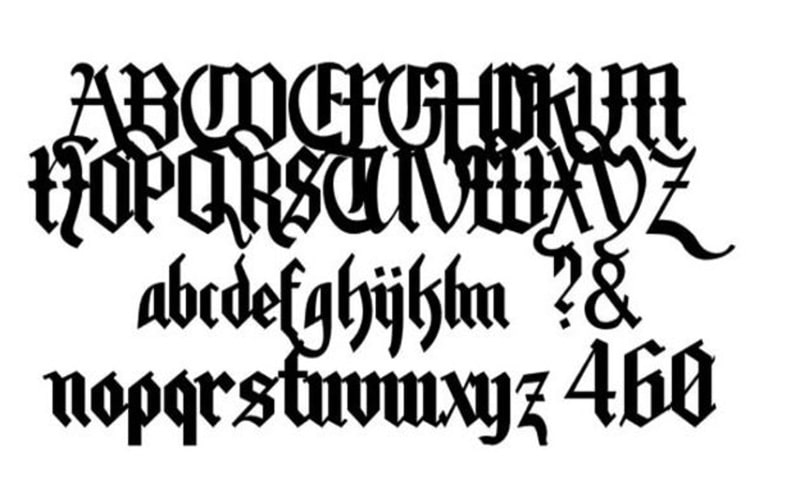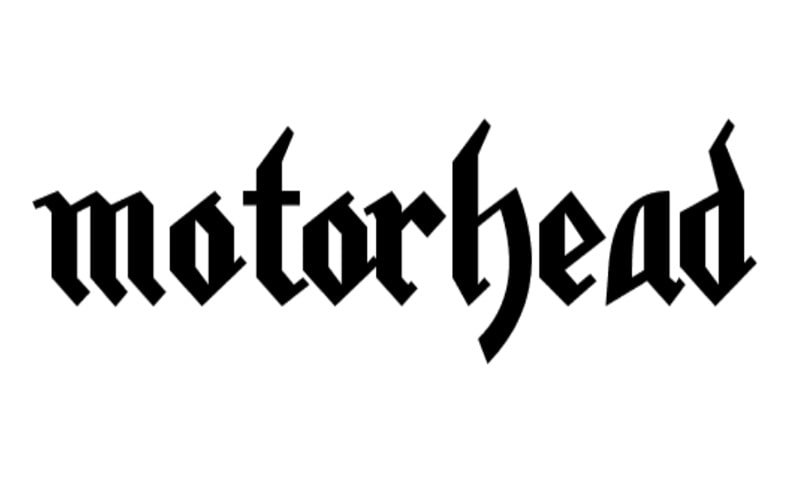
Motorhead Font is a blackletter, display typeface. Nеvillе Brody took charge of designing and releasing it in 1977. This amazing font has a slightly thicker structure with a heavy shape.
So, Motorhead was an England-based rock band created in June 1975 by three members: Ian “Lemmy” Kilmister, Larry Wallis, and Lucas Fox.
The display font family that is consists of only one unique weight including regular. The designer has put a stylish touch in every letter to make it more beautiful and is available in anchor fonts.
This heavy font is ideal for many purposes such as helping to create banner ads, book composing, logo crafting, fashion magazines, quotes, watermarks, invitation cards, greeting cards, business cards, and many more.
The font motorhead contains 653 characters including uppercase, lowercase, numbers, and punctuation marks. Preview the font map images added here to see what it will look like.
Make your designs outstanding by using a good text pair. You can choose PlainBlack Font designed by Paul Lloyd and Pirata One Font designed by Rodrigo Fuenzalida and Nicolas Massi.